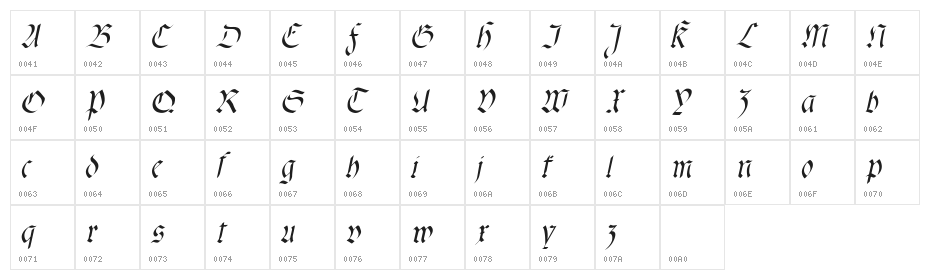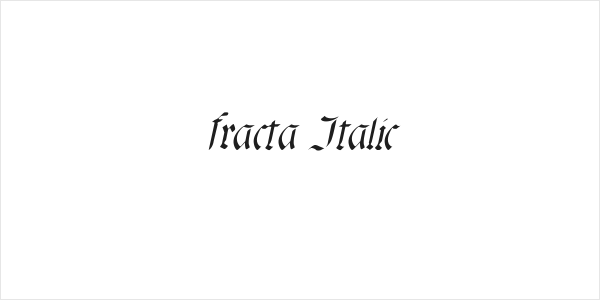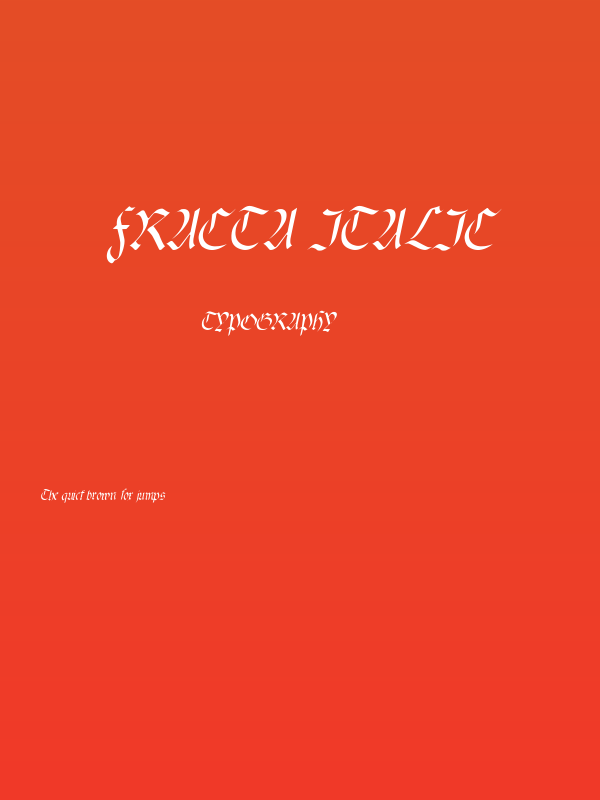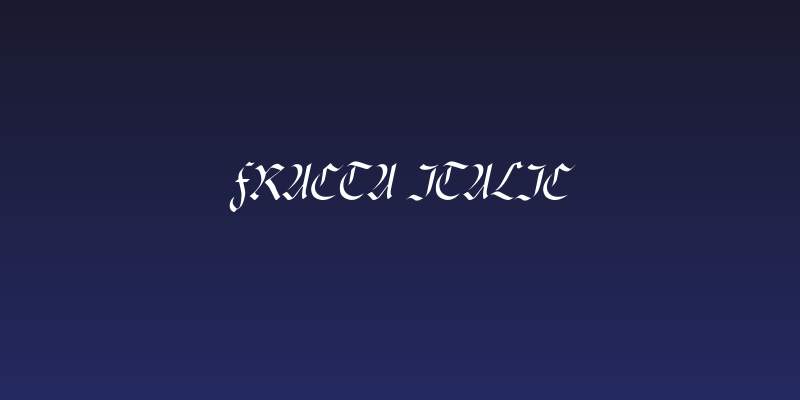
fracta Italic Font
fracta Italic Description
This font features a classic blackletter style with a distinctly italicized slant, giving it a dynamic and flowing appearance. The characters are intricately designed with sharp, angular strokes and high contrast between thick and thin lines, creating a dramatic and bold look. The uppercase letters are ornate and commanding, while the lowercase letters maintain a consistent style with a slightly more subdued elegance. The numbers and special characters are crafted to match the overall aesthetic, ensuring a cohesive and harmonious appearance across all elements.
| Proposed Projects | Ideal for projects that require a historical or gothic touch, such as book covers, posters, or branding for vintage-themed products. |